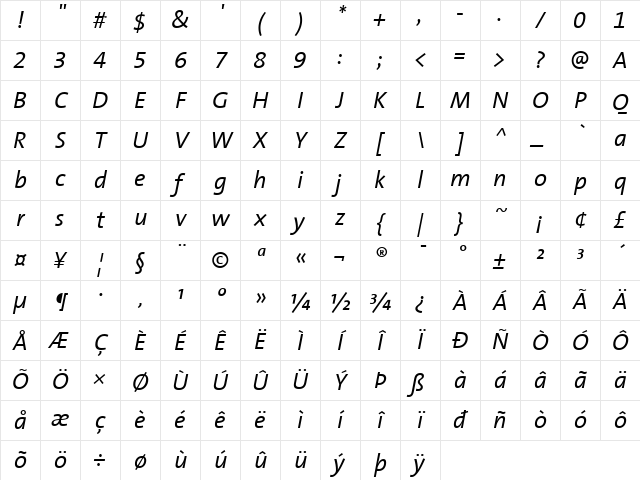
Complete TheSansCorrespondence Italic glyph index. Displaying only characters natively supported by TheSansCorrespondence Italic font.
TheSansCorrespondence is a composed and adaptable typeface that performs quietly and consistently across a wide range of design contexts. The slanted form adds forward momentum and visual energy.